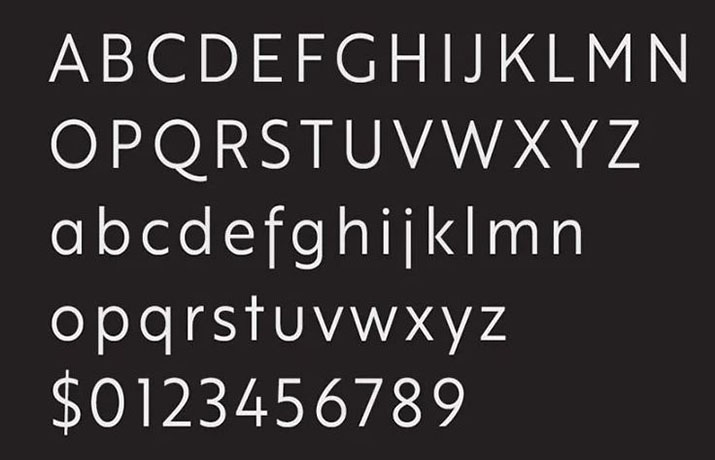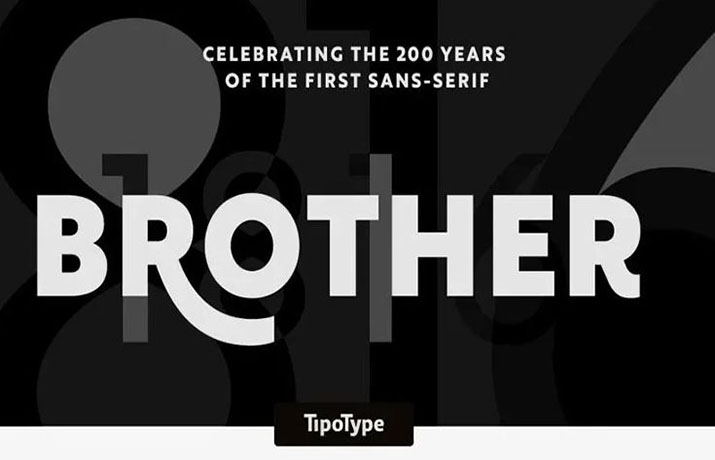
Brother 1816 Font is a sans-serif typeface that comes with blends geometric shapes with humanistic touches. It was designed by Fernando Díaz, and Ignacio Corbo and published by TipoType.
Its geometric nature works for bigger applications needing more personality, like branding, headlines, posters, etc. This makes Brother an excellent tool for an incredibly wide range of uses.
“Brother 1816 typeface comes in 32 fonts, which are divided into 2 groups: normal (16 weights) & printed (16 weights). Each weight has +460 characters, +20 alternates, angular and straight edges, swashes, fractions, ordinals, and much more.”
If you are looking for a versatile, expressive, and delightful font then you can check this font. Its human-friendly nature makes it easy to read, and readable at a small size. Perfect for branding, editorial, and signage.